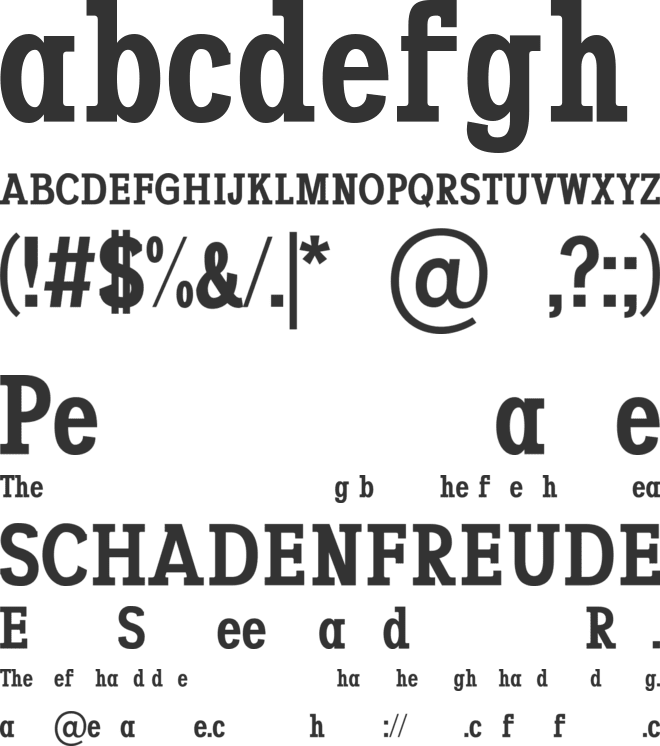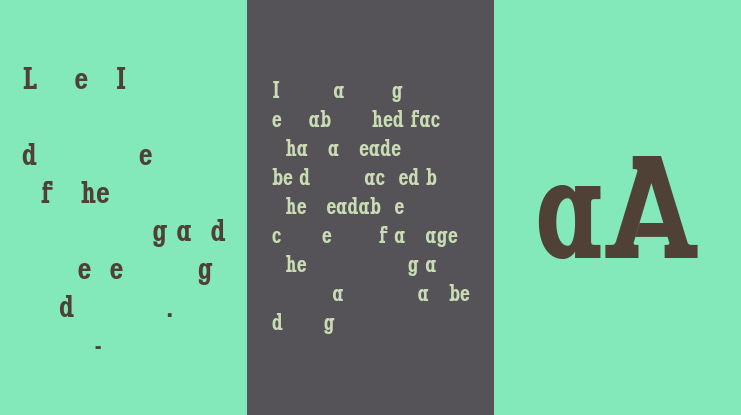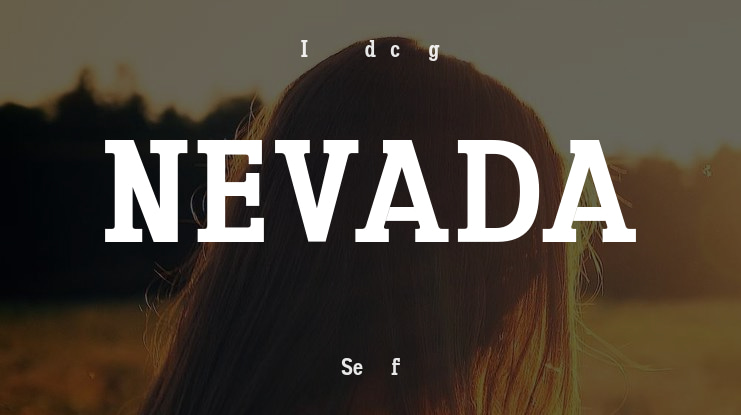
NEVADA Font Family
Nevada is a bold slab serif with Western flair and multilingual support—ideal for rugged headlines, Americana themes, and vintage-inspired design.
NEVADA font preview
NEVADA font
NEVADA ITALIC font